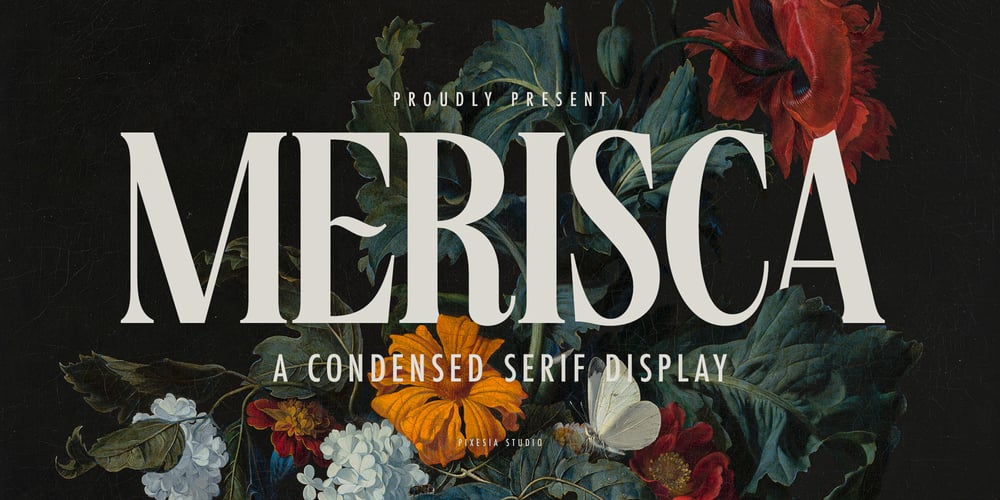
Merisca
Merisca font
Merisca Font Family was designed by Abul Almaududi and published by Pixesia Studio. Merisca contains 1 styles and family package options. Introducing Merisca – Modern Condensed Serif FontMerisca is a modern condensed serif font that is perfect for a wide range of design projects. The sleek and stylish design of this font is sure to add a touch of sophistication to your work, making it ideal for branding, packaging, and other design applications. Whether you are looking to create a minimalist and chic look or want to add some flair to your designs, Merisca is the perfect font choice. With its condensed serif style and modern aesthetic, Merisca is sure to enhance any design project.FEATURES- Stylistic Alternates- Ligatures- PUA Encoded- Uppercase and Lowercase letters- Numbering and Punctuations- Multilingual Support- Works on PC or Mac- Simple Installation- Support Adobe Illustrator, Adobe Photoshop, Adobe InDesign, also works on Microsoft WordHope you Like it.Thanks.